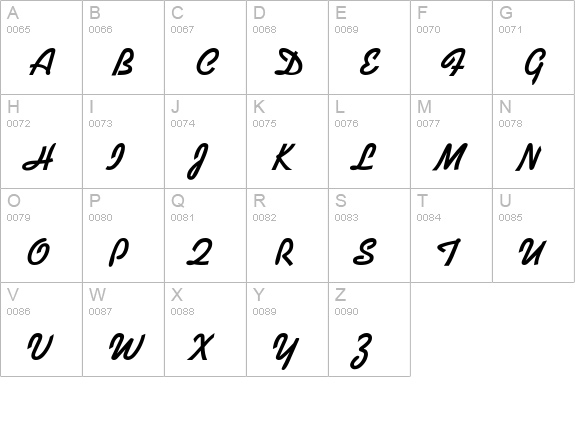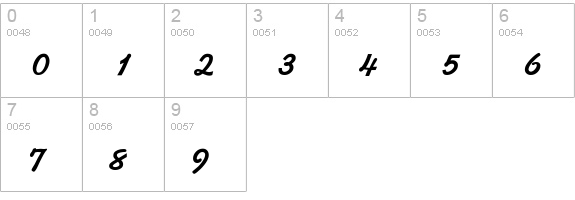
Sylvia-Bold is a strong, high-contrast variant in the Sylvia typeface family \xE2\x80\x94 well suited to headlines, attention-grabbing titles, and strong calls-to-action.
Introducing Sylvia-Bold font, a stunning and bold typeface that exudes elegance and sophistication. With its strong and impactful design, Sylvia-Bold is perfect for making a statement in any project. The thick strokes and sharp edges of this font command attention and create a memorable visual impact. What makes Sylvia-Bold even more appealing is that it is available for free download at FontsMarket.com. This means that you can easily access this striking font and use it in your designs without any cost. Whether you're working on a poster, logo, website, or any other creative project, Sylvia-Bold is sure to elevate your work and leave a lasting impression. Don't miss out on the opportunity to enhance your designs with this modern and stylish font. Download Sylvia-Bold for free today and unleash your creativity with this powerful typeface.